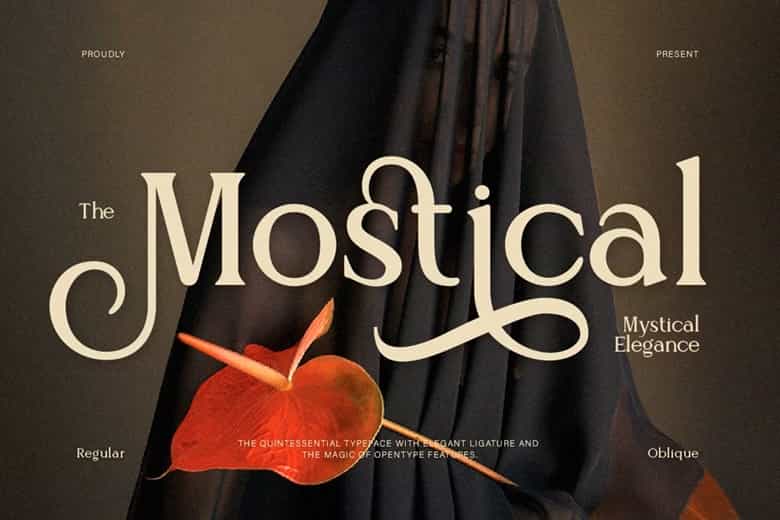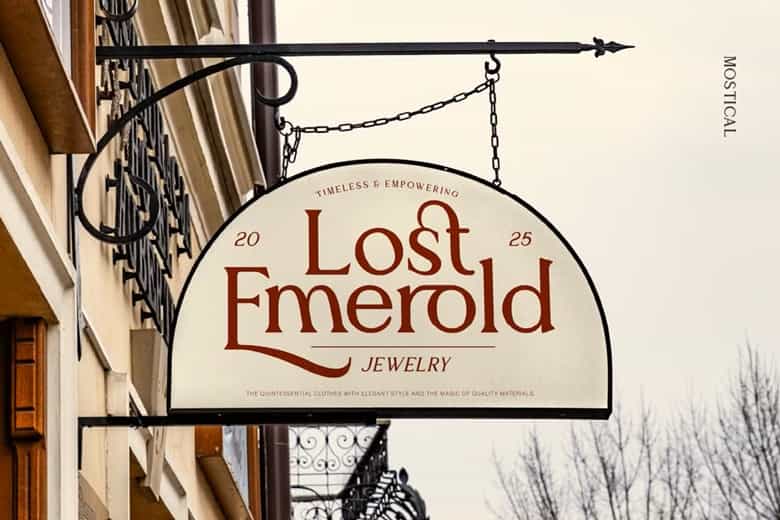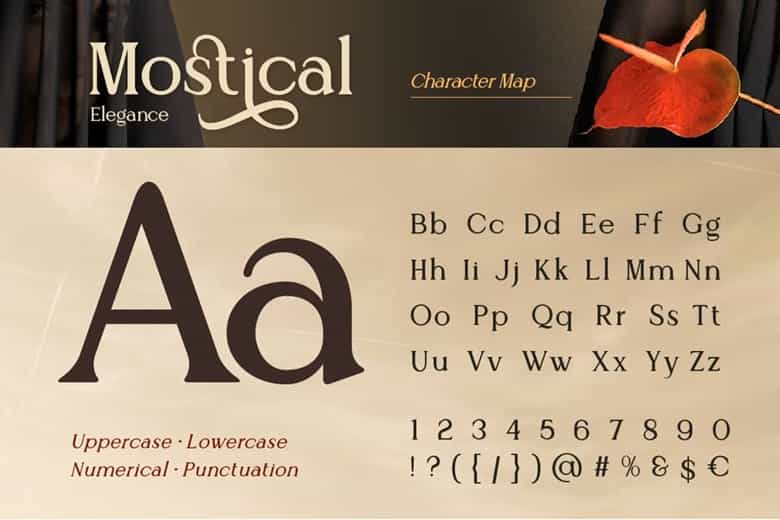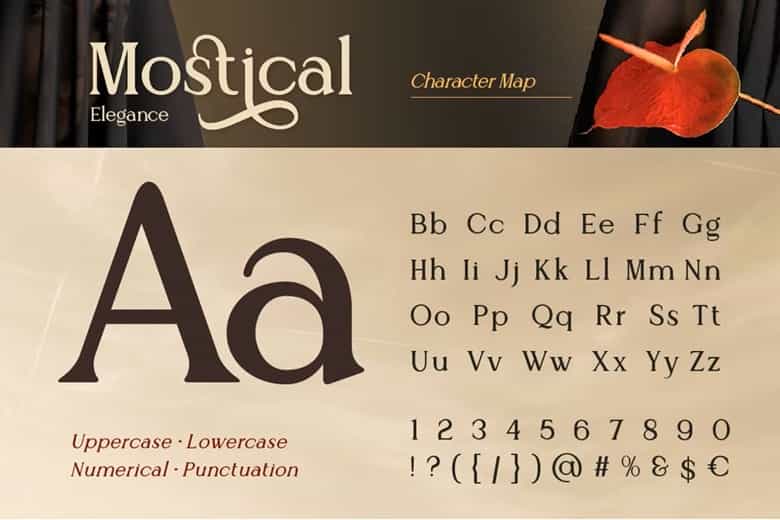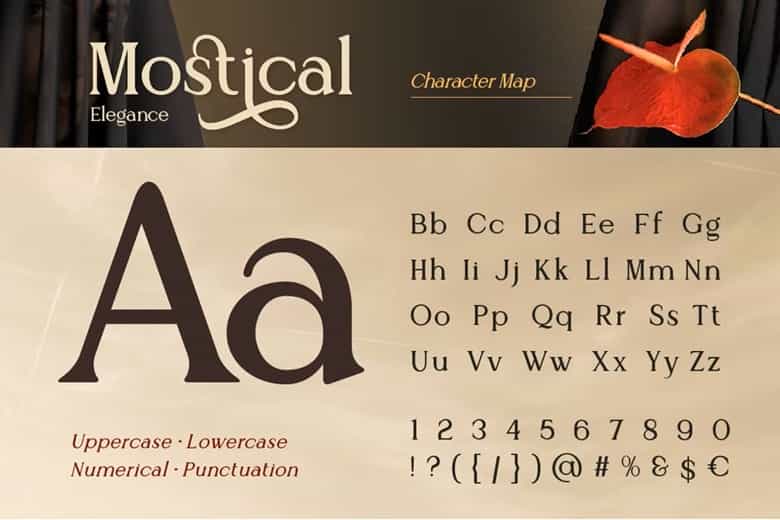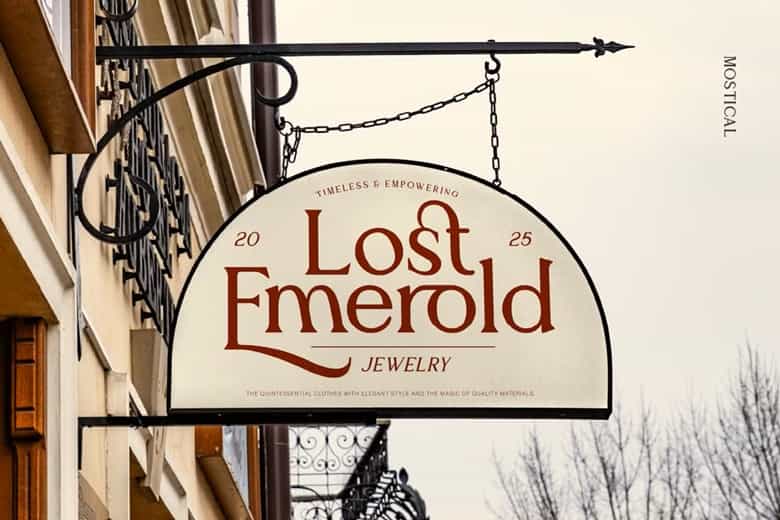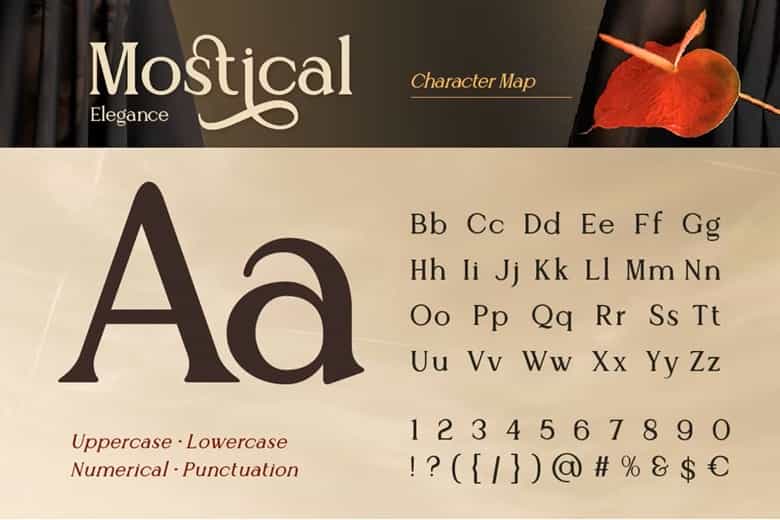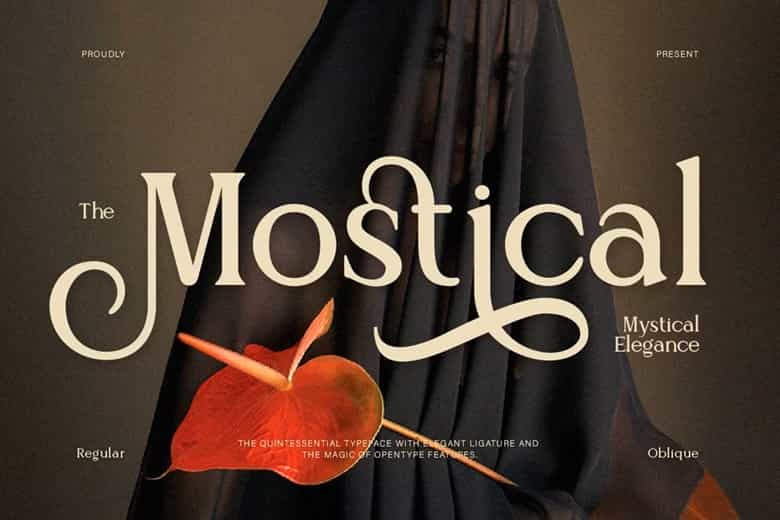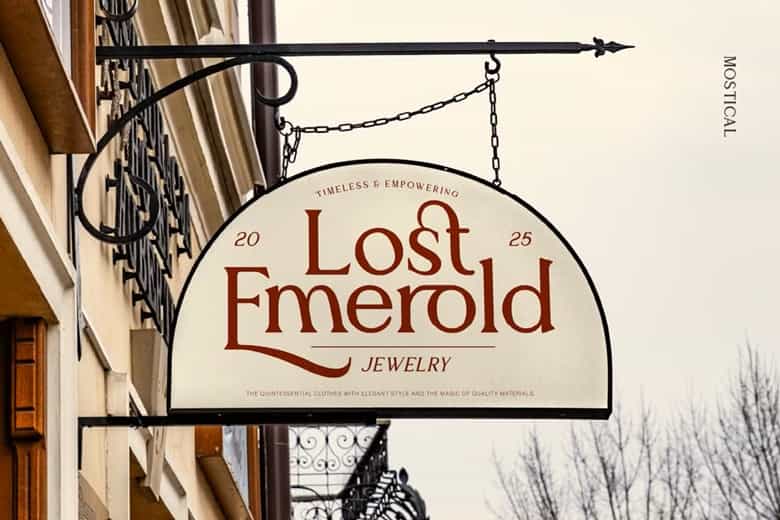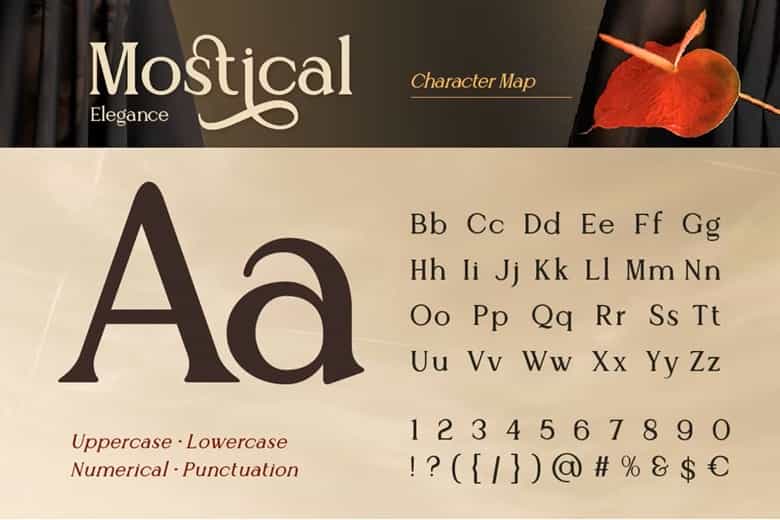
Mostical Font
Mostical – serif font shall give you the royal look and feel of a serif typeface. Available with two types – Regular and Oblique; let your project look classy & artistic. It also has the pretty ligatures and elegant alternatives that were added in the work to enhance the elegant look of any project.